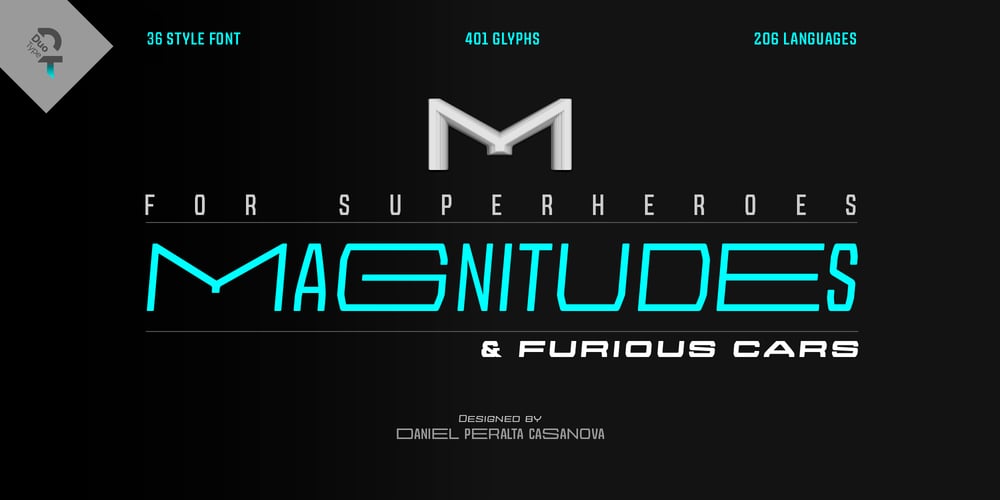
Magnitudes Font Family was designed by Daniel Peralta Casanova and published by DuoType. Magnitudes contains 36 styles and family package options. Magnitude is a font inspired by classics like Eurostyle and Bank Gothic, with geometric characteristics and dynamics style. Designed to be used in a wide variety of applications such as advertising, corporate projects, branding and retail product design. The font is well-suited for headings, display use and short text. The Magnitudes family is available in 36 weights, ranging from Extra light to heavy, to condensed and expanded with matching italics . The font contains a character set of 401 characters supporting 206 different languages.